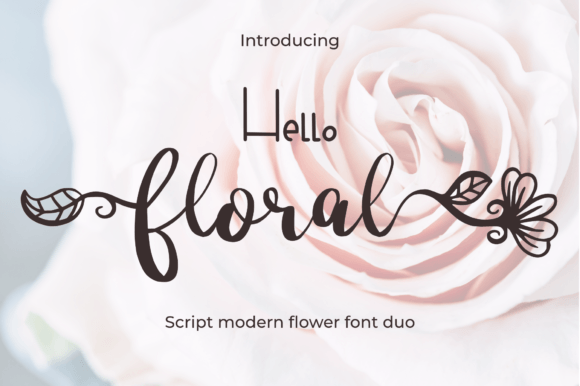
Introducing Hello Floral Font - the perfect script font for wedding invitations and more! Created by cocodesign, this new modern font features an irregular baseline that gives it a trendy and feminine style. With its beautiful floral designs, Hello Floral Font is the perfect way to elevate your next project.
Whether you're creating wedding invitations, thank-you cards, quotes, greeting cards, logos, or business cards, Hello Floral Font is the perfect choice. And it's not just for print - this font is also perfect for use in ink or watercolors.
With its wide range of features, including initial letters and terminals, alternatives, and support for many languages, Hello Floral Font is incredibly versatile. Plus, its keyword "Font For Wedding Invitation" makes it a must-have for any bride-to-be.